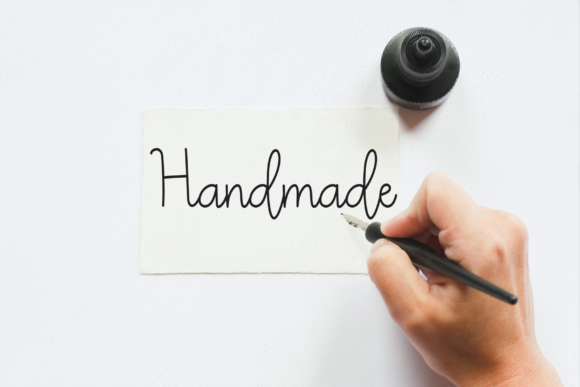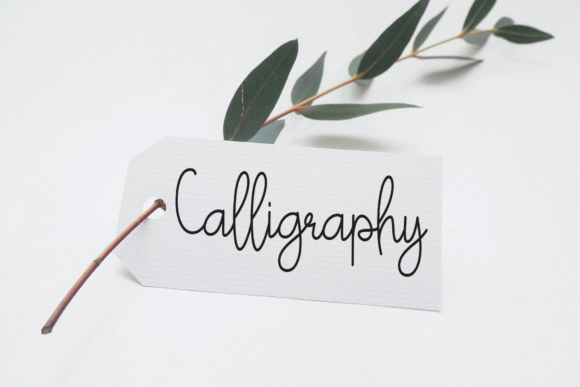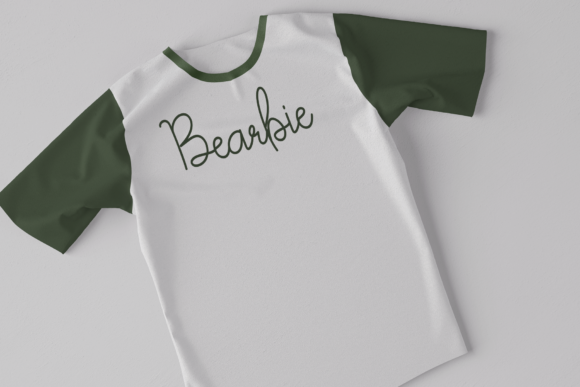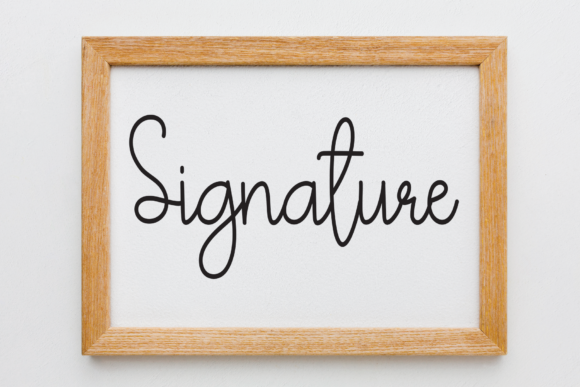
Alphabet Font
About Alphabet Font
Alphabet is an elegant script font that embodies a modern feel and perfect form. Its balanced and varied design makes it neither too thin nor too thick, making it the ideal choice for enhancing the aesthetic appeal of your projects. Alphabet’s versatility and adaptability make it suitable for a wide range of applications, from branding and marketing materials to web design and print media.
The contemporary feel of Alphabet sets it apart from other script fonts. Its modern and stylish design reflects the latest trends in typography, making it a popular choice among designers and creatives. Whether you’re designing a logo, creating a website, or crafting a print ad, Alphabet can help elevate your design to new heights.
One of the standout features of Alphabet is its perfect form. Each character is meticulously crafted to ensure balance and harmony. This attention to detail results in a font that is not only visually appealing but also easy to read and understand. The perfect form of Alphabet contributes to its overall elegance, making it a joy to use in any design project.
Alphabet is not too thin and not too thick, striking the perfect balance between readability and aesthetic appeal. This balance makes Alphabet versatile and adaptable, suitable for both large-scale displays and small text sizes. Whether you’re designing a billboard or crafting a business card, Alphabet ensures your text is always clear and legible.
The varied design of Alphabet adds to its charm and appeal. Each character is unique, yet they all work together to create a cohesive and harmonious font. This variety adds an element of surprise and interest to your designs, keeping your audience engaged and intrigued.
Designed to enhance the beauty of your projects, Alphabet is more than just a font. It’s a tool that can help transform your designs from ordinary to extraordinary. Its elegance and sophistication can add a touch of class to any project, making it stand out from the crowd.
In conclusion, Alphabet is an elegant script font with a contemporary feel and perfect form. Its balanced and varied design, combined with its modern aesthetic, makes it the ideal choice for enhancing the beauty of your projects. Whether you’re a designer looking for the perfect font or a business owner looking to elevate your branding, Alphabet is the font for you.